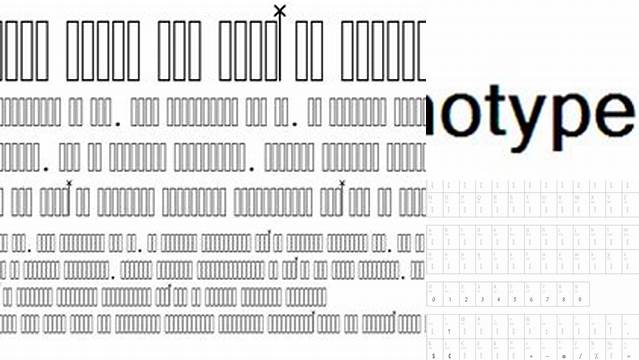
What is Lotus Linotype Font?
First things first, what exactly is the Lotus Linotype font? Well, it's a beautifully crafted typeface, known for its elegant and slightly condensed design. It often gets associated with a sense of sophistication and style. This font is the perfect choice for various design projects. The font's design features clean lines and a balanced appearance, making it highly readable while still offering a touch of flair. It is a typeface that is both classic and modern, providing designers with a versatile tool that suits a wide range of applications. Lotus Linotype has a rich history rooted in the world of printing. The original version was created for the Linotype machine, a typesetting machine that revolutionized printing in the late 19th century. The font's design, therefore, reflects the precision and elegance of this era. The font's ability to stand out while maintaining readability makes it a valuable asset in many applications. This makes it a suitable choice for everything from headlines and titles to body text. Its distinct character also adds a touch of class to any project, from digital design to print.
When we talk about the characteristics of the Lotus Linotype font, it's all about the details. The font's design shows a blend of traditional and contemporary elements. The carefully designed letterforms and consistent stroke weights contribute to the font's overall aesthetic appeal, ensuring the text is both beautiful and legible. With its slightly condensed structure, Lotus Linotype maximizes space without compromising on readability. The font's condensed form is especially useful for projects where space is at a premium. The typeface has a unique charm thanks to its distinctive serifs and subtle curves. The serifs give the font a classic and elegant feel, while the curves add a sense of smoothness and sophistication. This typeface also comes in different weights, which makes it flexible for use in a wide array of projects. Whether you need a bold headline or a more subtle text, the variety of weights available will fit your design needs.
Furthermore, Lotus Linotype is more than just a pretty face; it's a workhorse. The font's readability means it works well in both large and small sizes. This makes it a versatile choice for a variety of design projects. In addition to its elegance, the font is also very readable, ensuring that your message is clear and concise. So, whether you're designing a website, creating marketing materials, or working on a personal project, this font can make a big impact. The design of Lotus Linotype is a testament to the artistry and functionality that a great typeface should have. This font enhances the visual impact of any text while still maintaining its primary function: clear communication. The font provides a seamless blend of aesthetics and usability, allowing designers to create designs that are both attractive and easy to read. The design's timeless appeal also ensures that the text does not become dated. This design remains a favorite choice for professionals and amateurs because it can be used in a wide range of projects, all while maintaining its refined design.